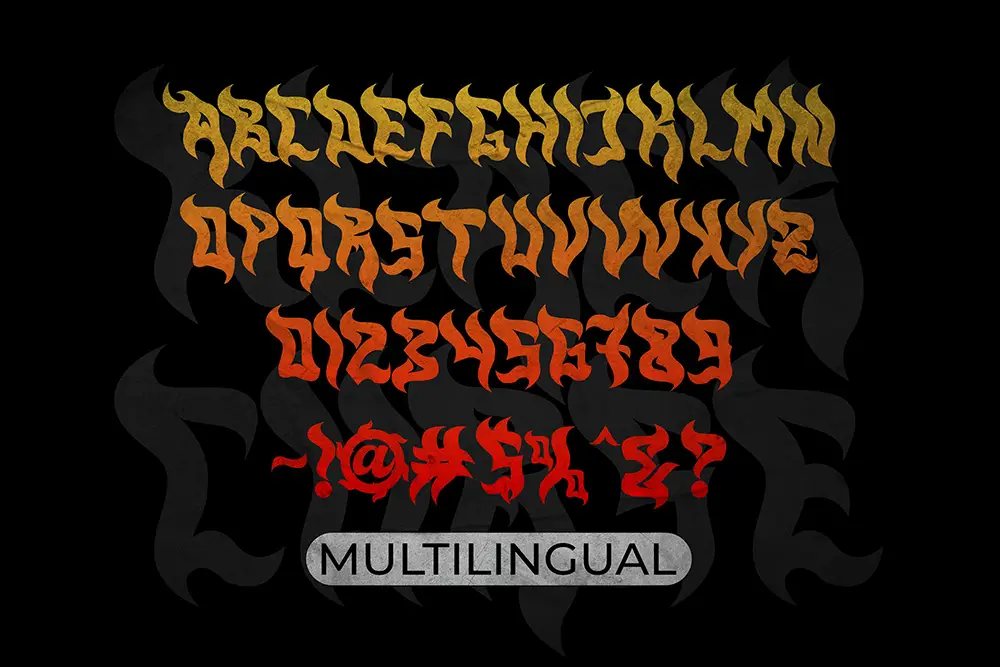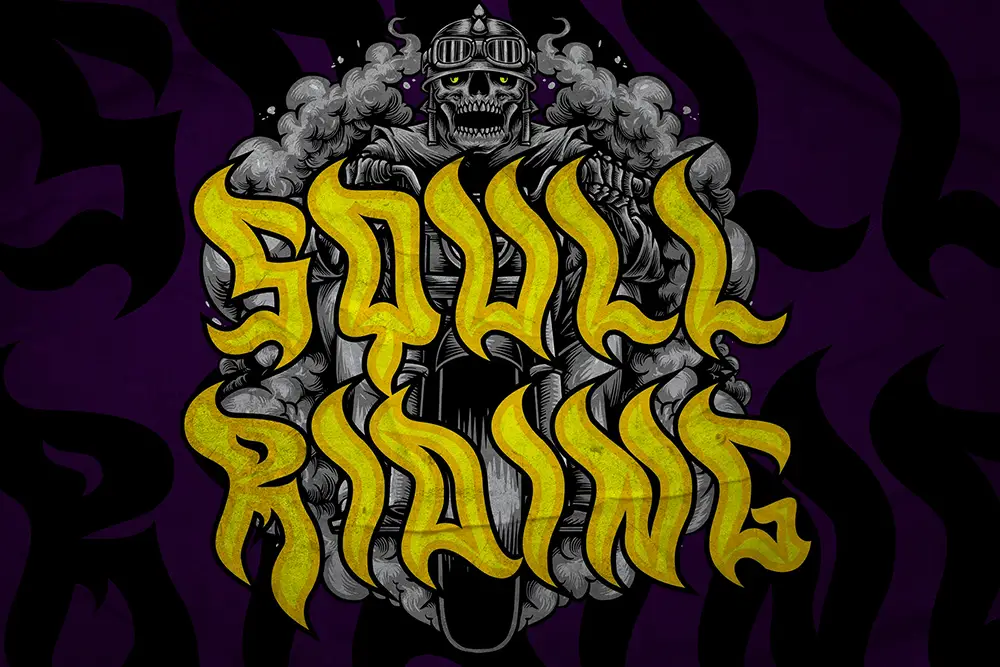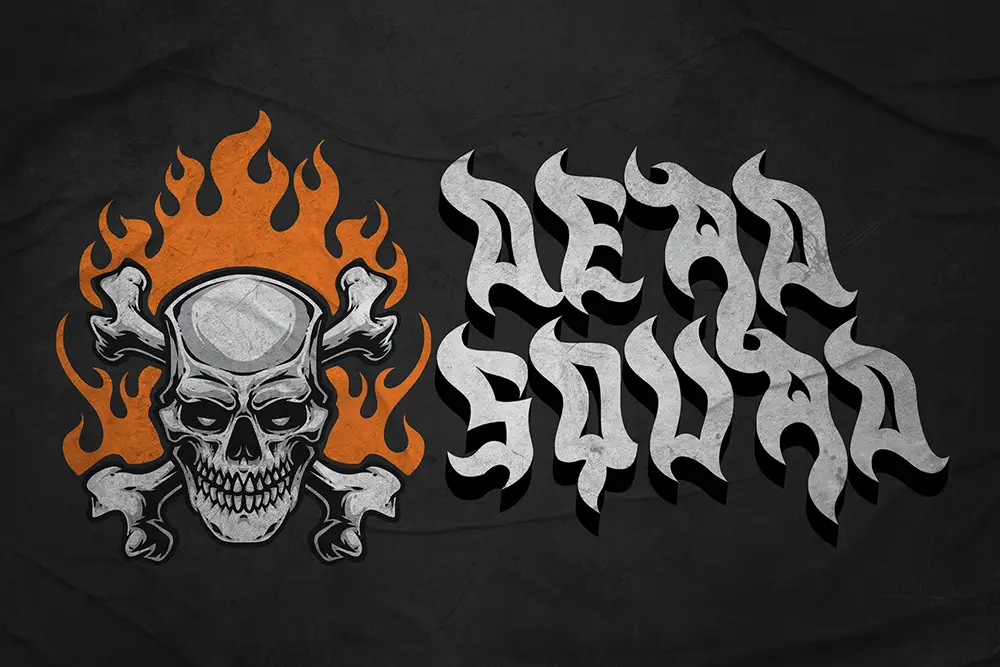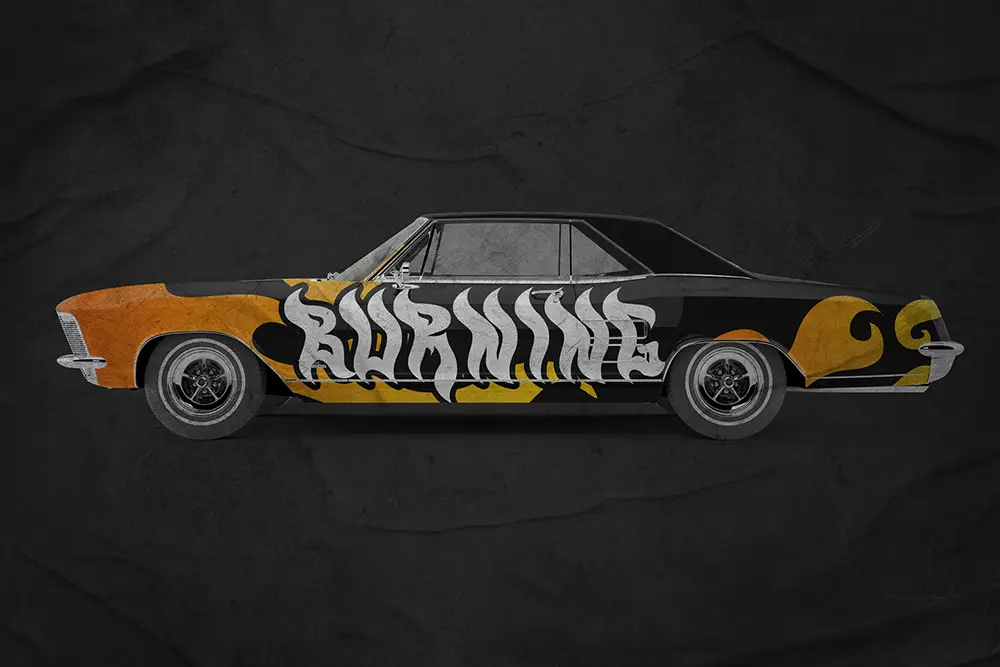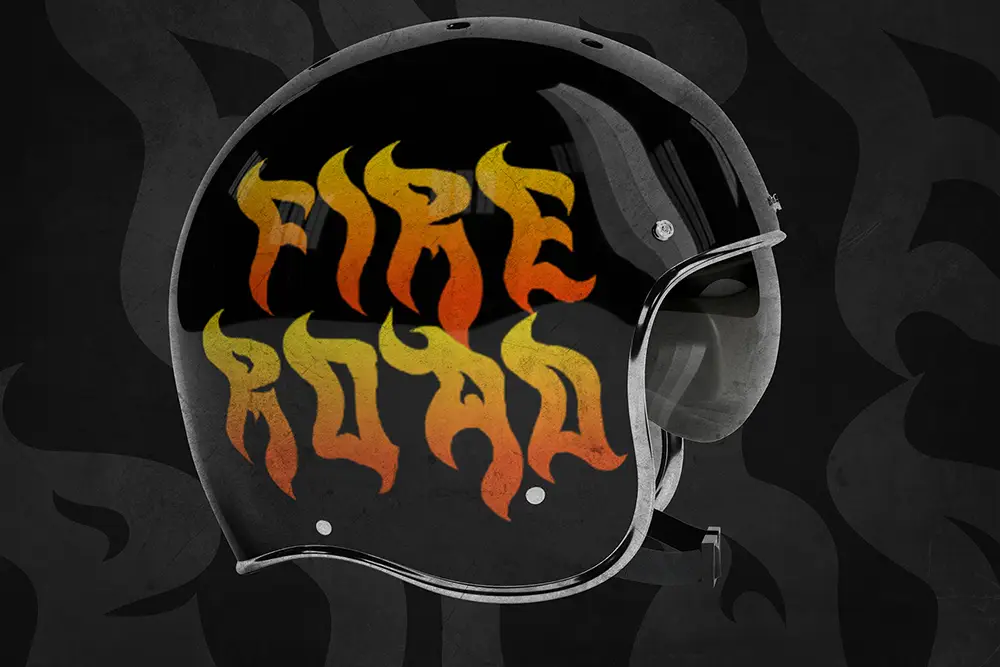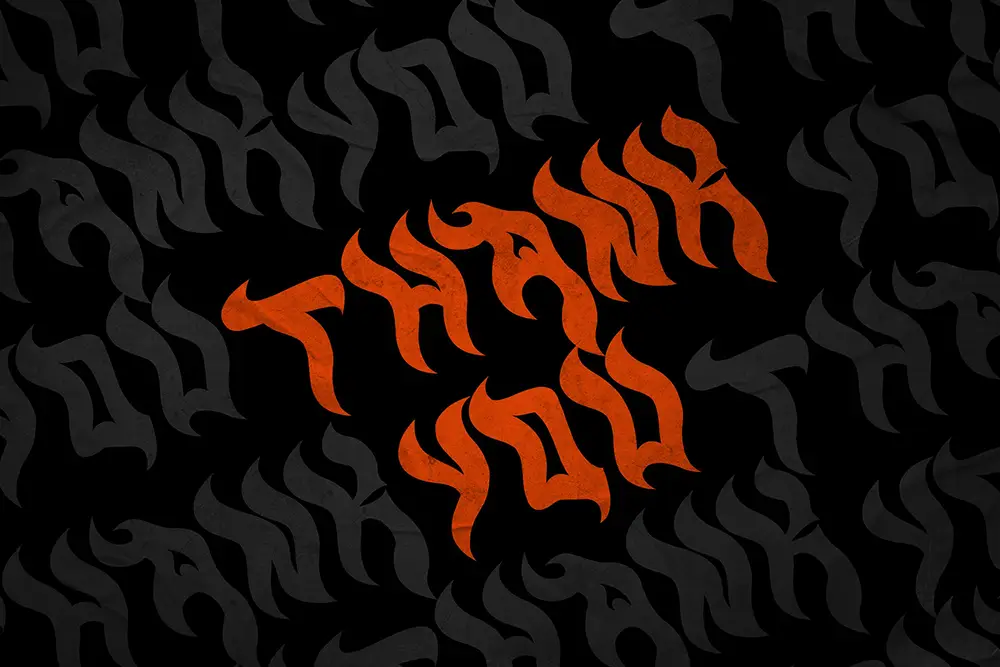
Black Curse – Simple Blackmetal Font for Dark Design Energy
Typography defines mood and emotion, and when it comes to heavy and intense aesthetics, nothing captures it better than a simple blackmetal font. Black Curse – Simple Blackmetal Font is crafted for designers who want to inject raw power and darkness into their work. With sharp strokes, all caps letters, and an aggressive visual tone, this font embodies the essence of black metal culture.
From band logos to event posters, this simple blackmetal font ensures every design feels strong, haunting, and unforgettable. If you’re looking to create bold statements in music branding, alternative fashion campaigns, or horror-inspired graphics, Black Curse is your perfect choice.
Simple Blackmetal Font with All Caps Power
Black Curse is designed entirely in uppercase, giving it the raw dominance expected from a simple blackmetal font. Its sharp, angular letterforms mimic the aesthetic of underground music and dark visuals. This makes it ideal for projects that require a sense of intensity and mystery.
Whether you’re designing for a heavy metal event, a gaming logo, or horror film promotion, Black Curse provides the typographic atmosphere you need.
Key Features of Black Curse – Simple Blackmetal Font
To make the most of this typeface, here are the defining features included in Black Curse – Simple Blackmetal Font:
• All Caps Characters: Designed fully in uppercase for maximum impact.
• Multilingual Support: Extended Latin characters for global usability.
• Sharp & Angular Strokes: Perfect for black metal aesthetics and dark visuals.
• High Readability at Scale: Ideal for logos, posters, and event branding.
• Professional Quality: Carefully crafted for both digital and print projects.
Why Designers Love Black Curse
Designers gravitate toward Black Curse because it embodies the perfect mix of readability and raw power. As a simple blackmetal font, it offers the aggressive visual tone needed for heavy projects without compromising clarity.
Here’s why it’s loved:
• Perfect for Music Branding: Ideal for metal, punk, and alternative bands.
• Eye-Catching Posters: Works flawlessly for concerts, underground events, and promotions.
• Global Appeal: With multilingual support, it reaches audiences worldwide.
Black Curse for Logos and Band Identities
Logos are the face of any brand or band. Black Curse is a simple blackmetal font built to dominate in logo design. Its uppercase structure and aggressive forms make it a natural fit for metal band identities, gaming brands, and alternative product logos.
Black Curse for Posters and Event Branding
Posters are meant to grab attention instantly, and Black Curse delivers exactly that. As a simple blackmetal font, it thrives in large-scale designs like concert flyers, horror film posters, or underground event promotions.
The all caps style commands authority, while the sharp strokes create an atmosphere of raw energy. Black Curse ensures your poster designs won’t just be seen—they’ll be remembered.
Using Black Curse in Digital Media
Digital media often demands fonts that can set a mood with intensity. Black Curse is the simple blackmetal font for creating social media graphics, streaming visuals, and YouTube channel art.
Its multilingual support makes it a global tool for digital designers. If you’re aiming for edgy, heavy, or horror-inspired digital content, Black Curse delivers the right amount of power.
• Font Name: Black Curse – Simple Blackmetal Font
• Character Set: All Caps, Numbers, Punctuation
• Multilingual Support: Yes
• Category: Simple Blackmetal Font
• Best Uses: Logos, Posters, Band Branding, Event Flyers, Digital Media
Font Pairing Suggestions
Black Curse becomes even more versatile when paired with the right typefaces. One of the best pairings is Kastroz Luxury Vintage Serif Font. The sharp, dark energy of Black Curse contrasts beautifully with Kastroz’s timeless serif elegance, creating a balanced yet powerful aesthetic for both print and digital work.
Why Black Curse is the Simple Blackmetal Font You Need
Typography is about communication, but in the world of dark and alternative design, it’s also about attitude. Black Curse embodies that attitude perfectly. As a simple blackmetal font, it delivers sharpness, authority, and atmosphere in every letterform.
Designers who need strong aesthetics for music branding, event promotion, or horror visuals will find Black Curse indispensable. With OTF, TTF, and WOFF files included, plus multilingual support, it’s ready for both local and global creative projects.
Black Curse – Simple Blackmetal Font is not just a typeface; it’s a weapon for bold designers. With all caps strength, multilingual support, and sharp blackmetal style, it’s made for projects that demand authority and intensity.